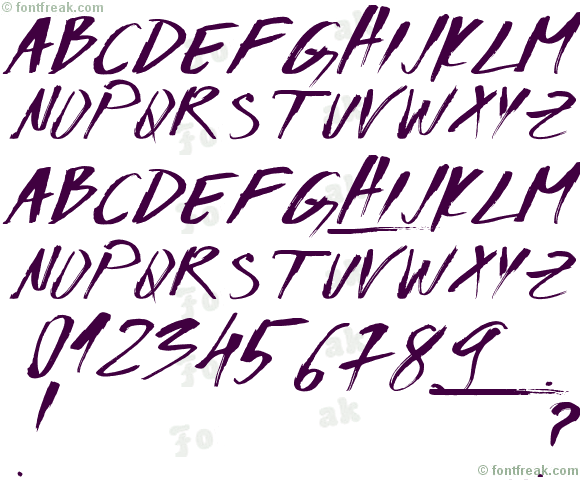
Codiac
Codiac, designed by Leonard Posavec, is a striking display font that effortlessly blends artistic flair with readability. As a handwritten typeface, it features playful, organic strokes that evoke a sense of creativity and spontaneity. The Codiac font showcases a moderate stroke weight with subtle contrasts, lending it an inviting and approachable character. The spacing is thoughtfully designed to ensure clarity while maintaining its expressive style, making it ideal for a variety of applications.
This font excels in settings where personality and warmth are paramount. It is perfect for wedding invitations, where its whimsical charm adds a personal touch. Codiac also shines in creative projects like movie posters, capturing attention with its unique artistic style. Additionally, restaurant menus can benefit from this font’s friendly vibe, enticing diners with a sense of comfort and style. Content creators and social media marketers will find Codiac particularly appealing for branding materials and promotional graphics, as it adds a distinctive flair that resonates with target audiences.
Codiac is a fantastic choice for graphic designers, small business owners, and content creators who seek a typeface that stands out while remaining versatile. The font’s free availability as freeware enhances its accessibility, allowing users from various backgrounds to incorporate it into their designs without worry.
What truly sets the Codiac font apart is its ability to convey emotion while maintaining legibility. Its artistic strokes and inviting design make it a valuable asset for any creative project. Whether you’re crafting a heartfelt invitation or an engaging promotional piece, the Codiac font free download opens the door to endless possibilities, ensuring your designs leave a lasting impression.